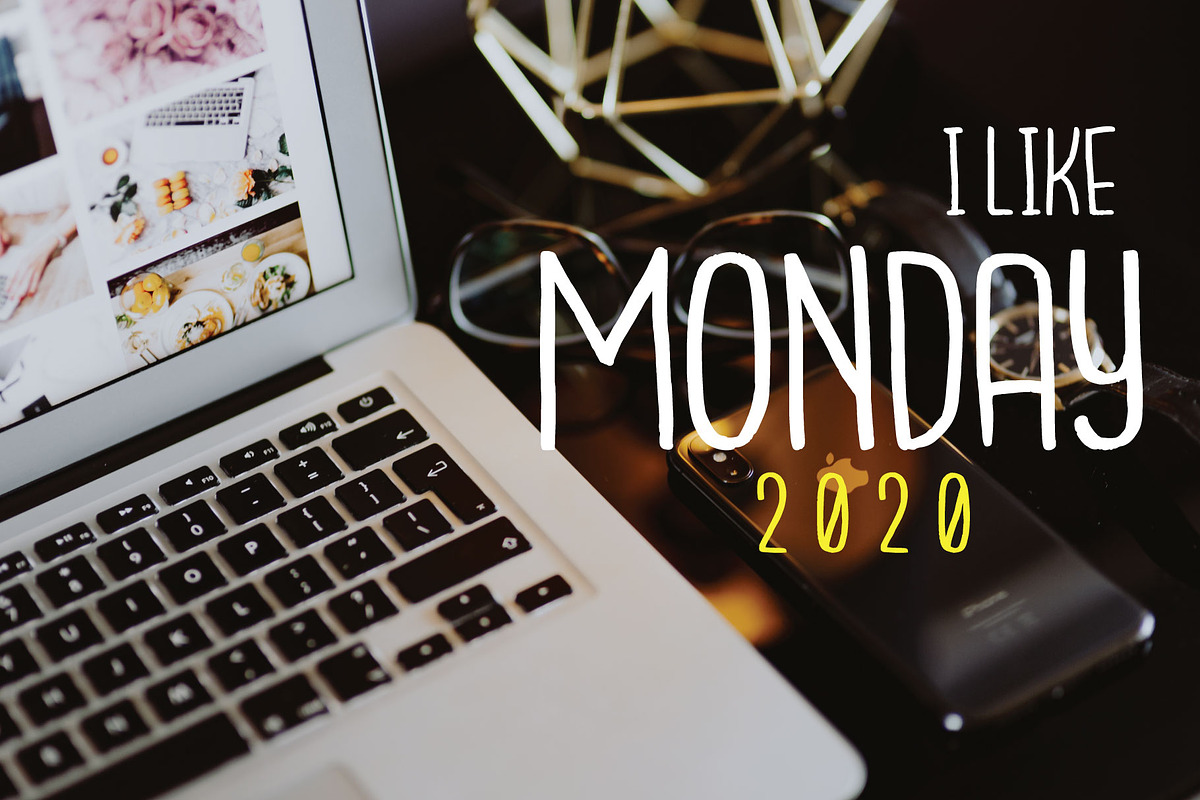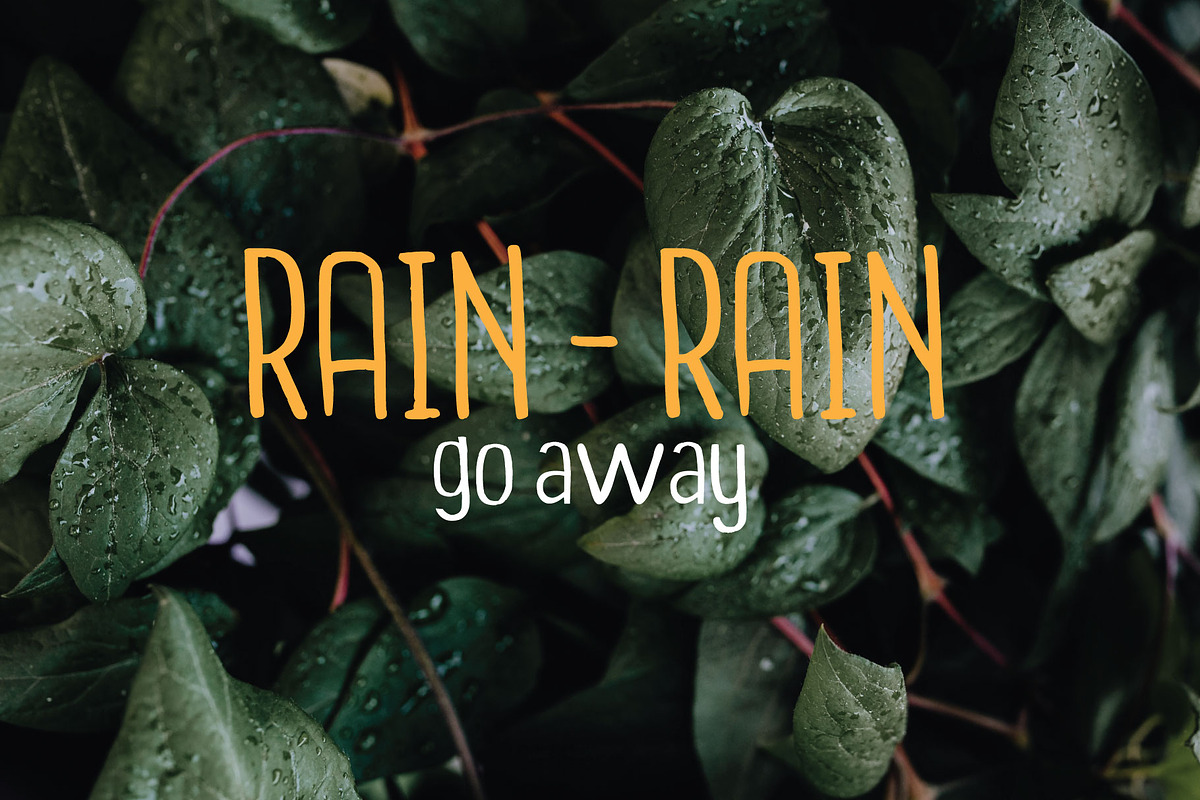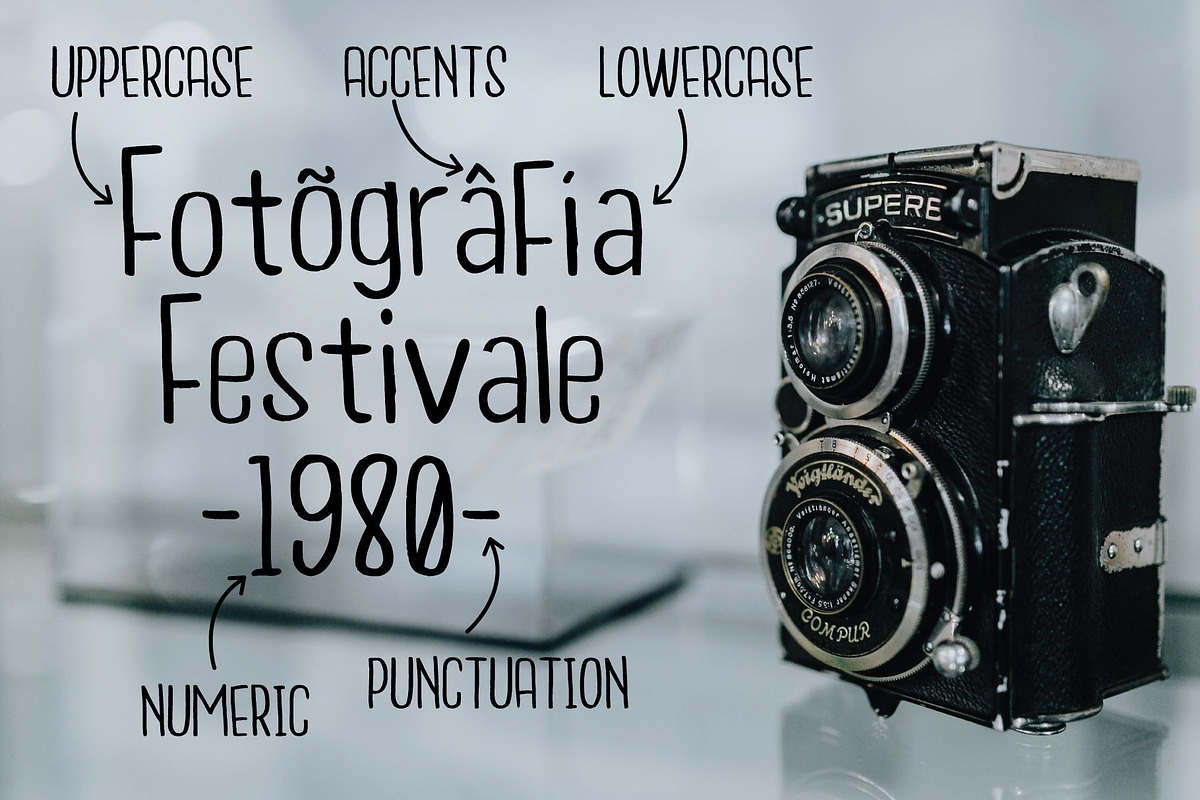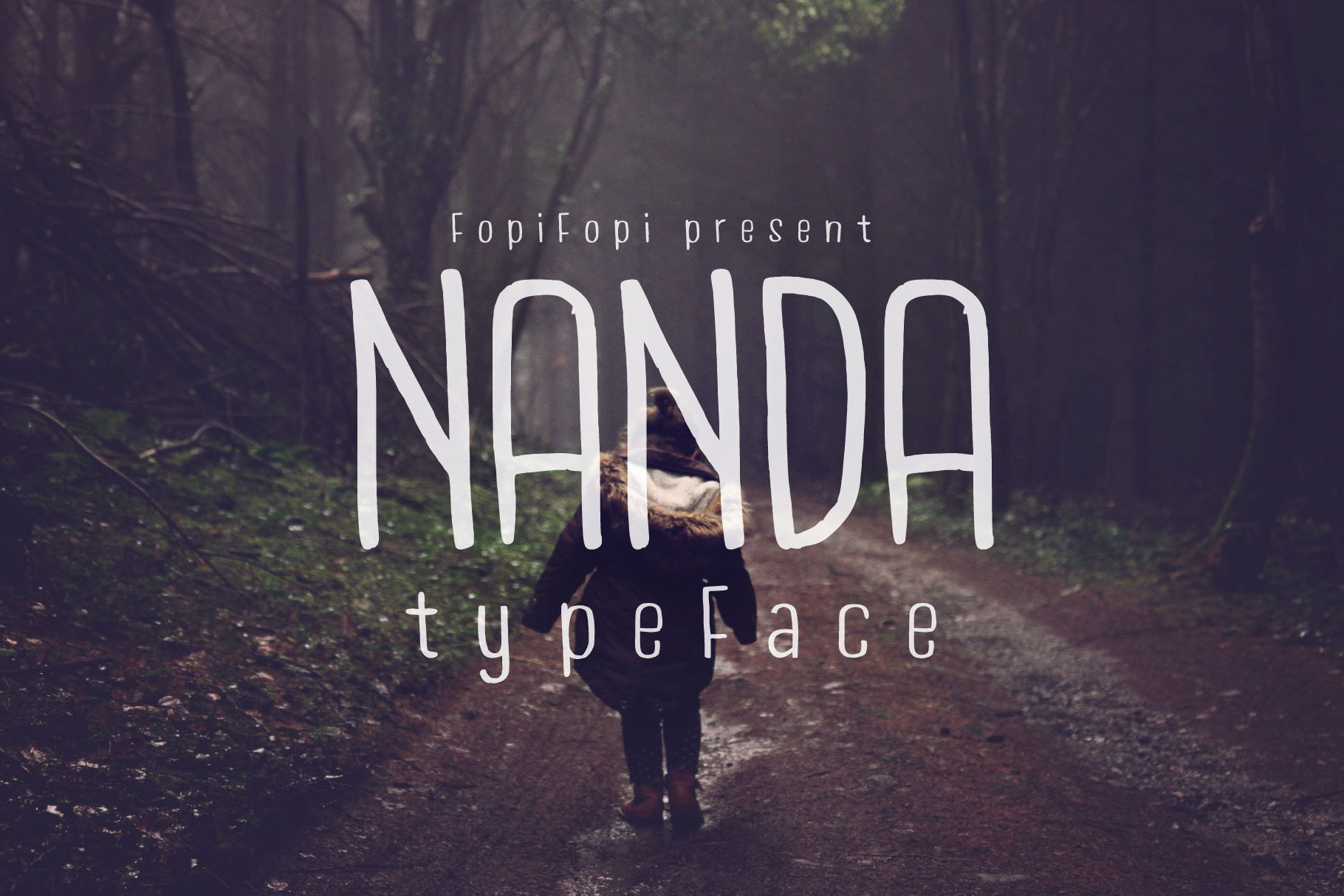
NANDA TYPEFACE
NANDA font is my best download font in dafont.com. Many people request to make full version of this font. NANDA is the unique font with handmade shape was inspired from vintage poster 1980 could help to good display, uses for lyric music video, album cover, labeling, clothing, movie sceen, band logo,film title, gigs, or music poster, the skies is your limit :). It comes with 246 characters included Uppercase, Lowercase, Numbers, Punctuations, Currency, and Accents. ;)